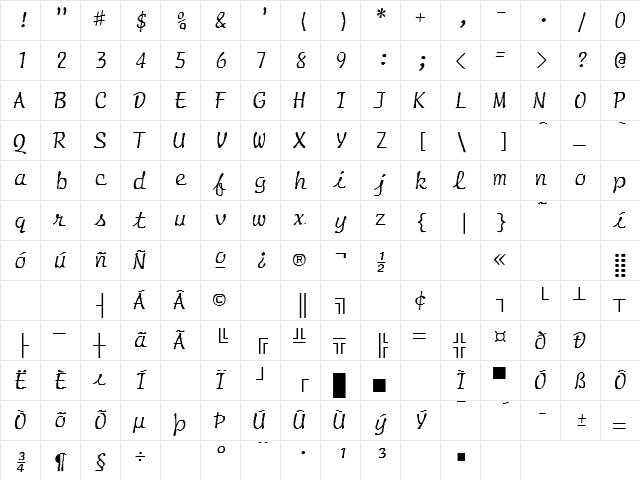
Frantic 1 Regular
Design Context for Frantic 1 Typeface
Frantic 1 offers clean, dependable letterforms without strong stylistic allegiance, making it a practical choice for designers who need flexibility.
Pro Tip: Use Frantic 1 in both headline and body roles to test its range before committing to a single application.